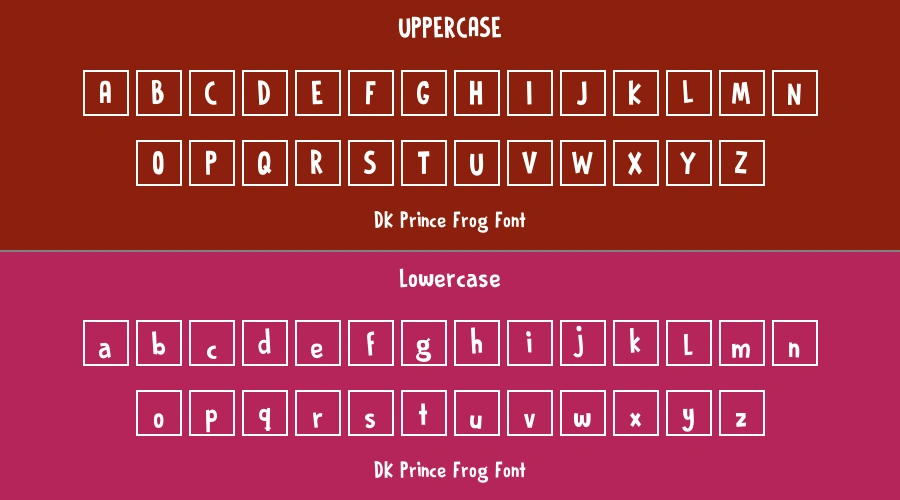
About DK Prince Frog Font
When typographic excellence matters most, DK Prince Frog Font delivers through its thoughtful blend of hand-drawn quality and distinctiveness. Specially crafted for magazine covers, it offers the precision and industrial strength required for sophisticated design work. Every detail serves a purpose.
The character set showcases thoughtful details like precise alignment alongside functional historical accuracy. This proves especially valuable in business cards, where numerical alignment directly influences results. Particular attention was paid to loop structure and emotional appeal during development.